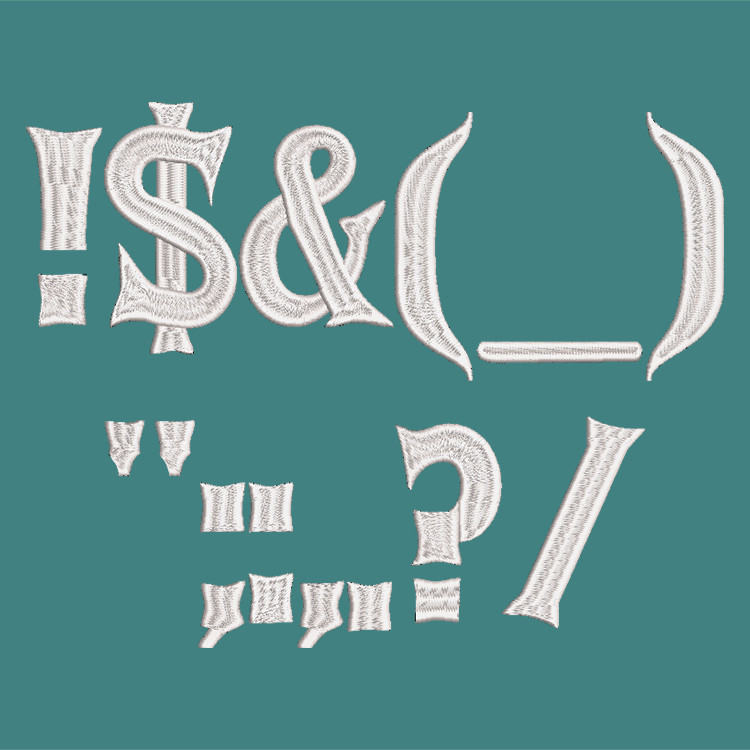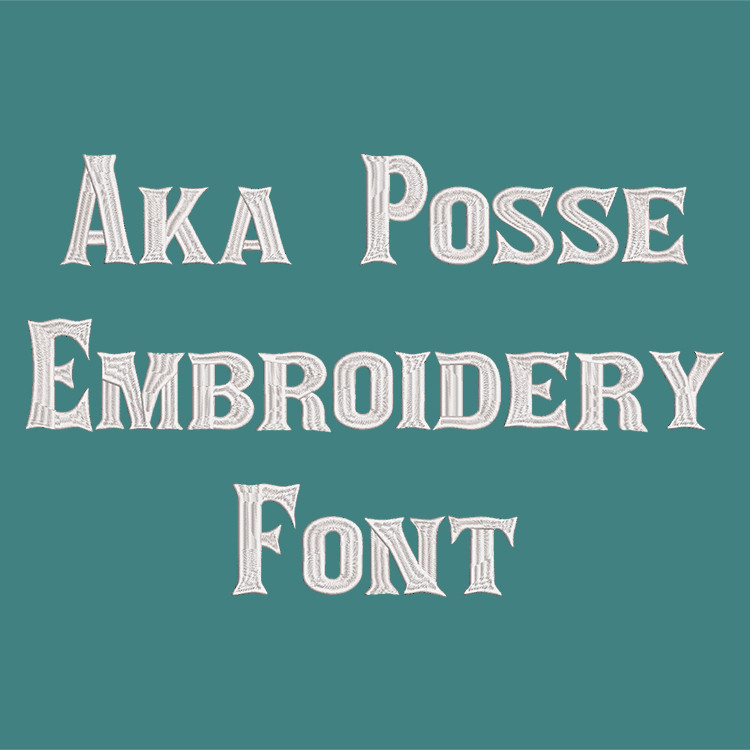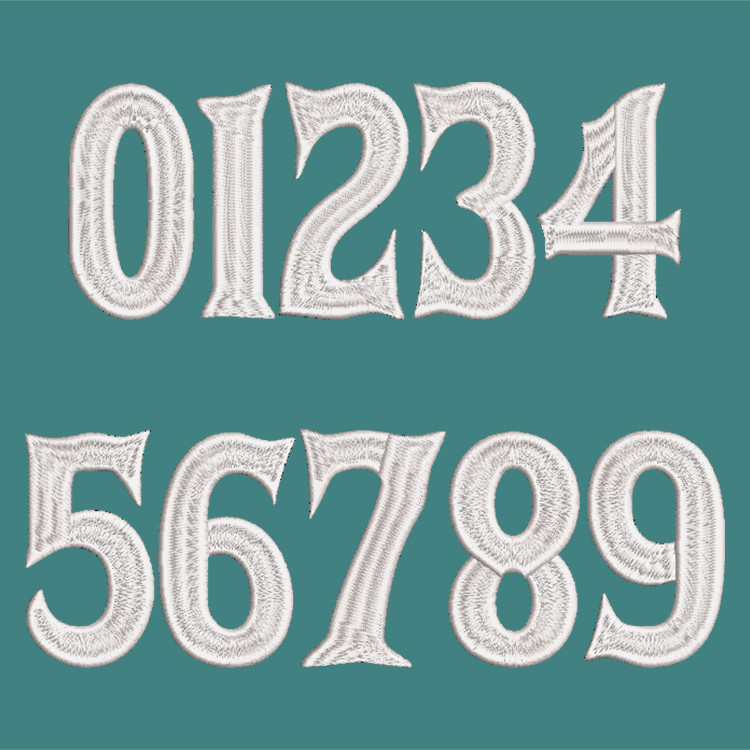
Machine Embroidery Font - Aka Posse Font
Title: Aka Posse Machine Embroidery Font
This beautiful font would look amazing as a Monogram on Totes, School bags and purses!